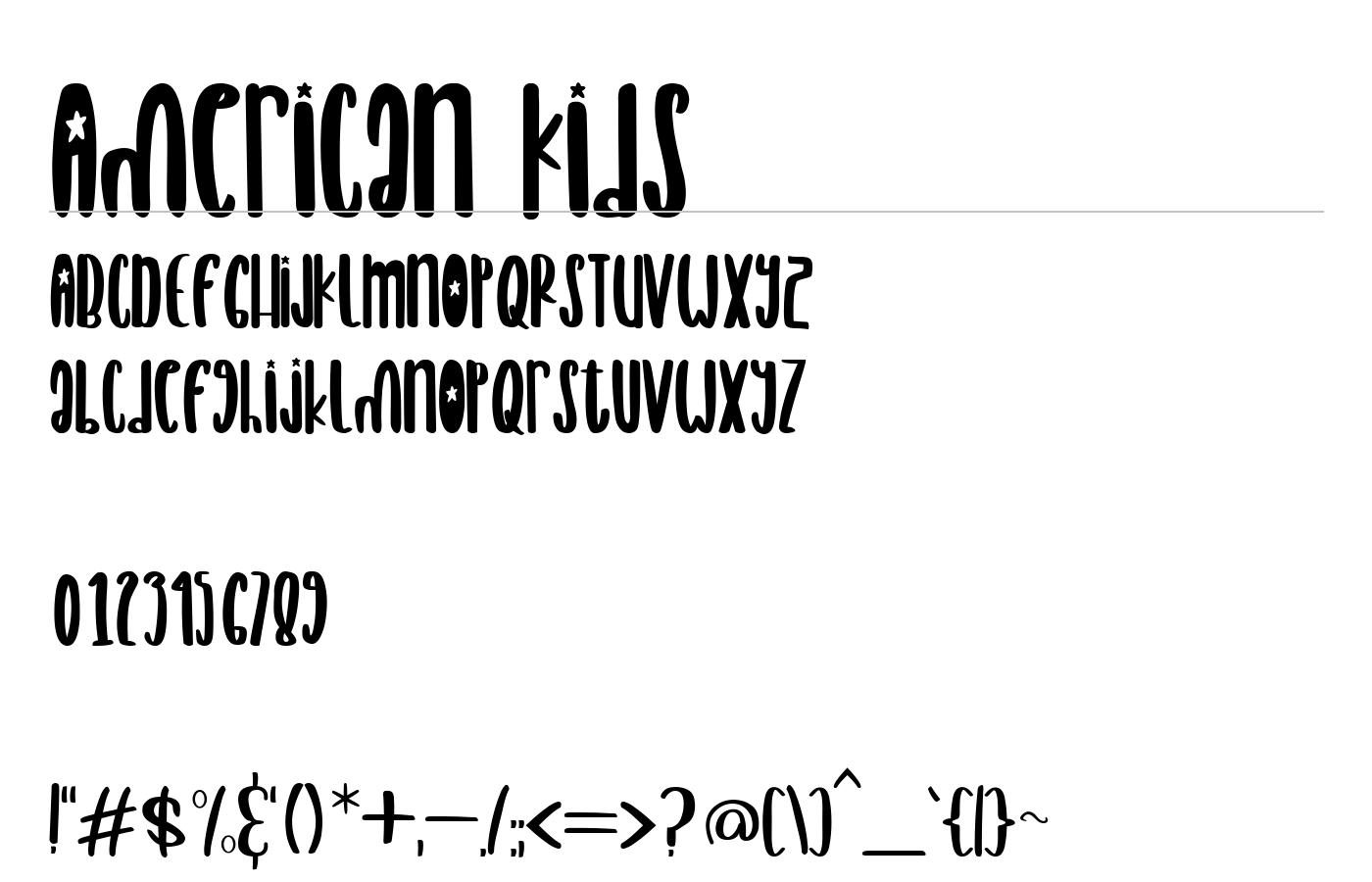
American Kids Font is a playful and narrow sans-serif typeface with a whimsical, hand-drawn feel, featuring tall, rounded letters and charming star accents inside some characters. Its quirky, informal style makes it perfect for children's books, playful logos, party invitations, or any design needing a fun and friendly vibe that stands out with personality and warmth.
American Kids Font
About American Kids Font
| Font family | American Kids Font |
| Designer | Nomlimofont |